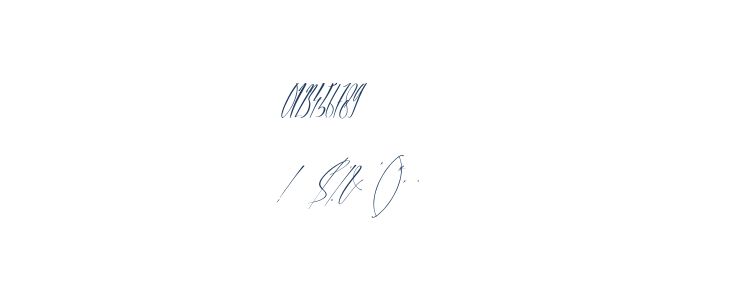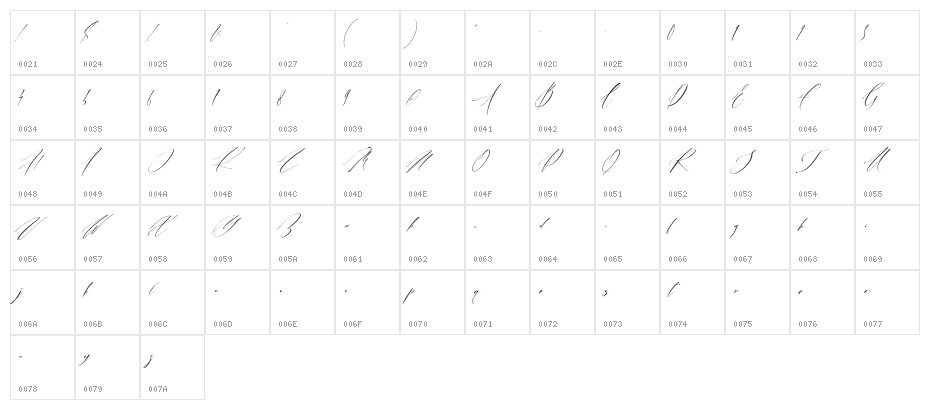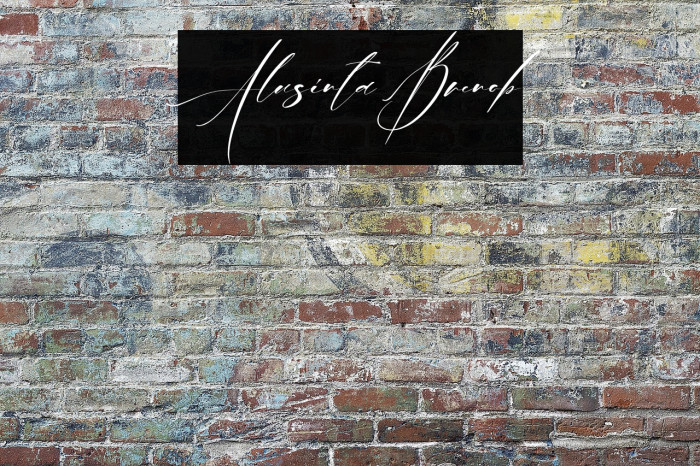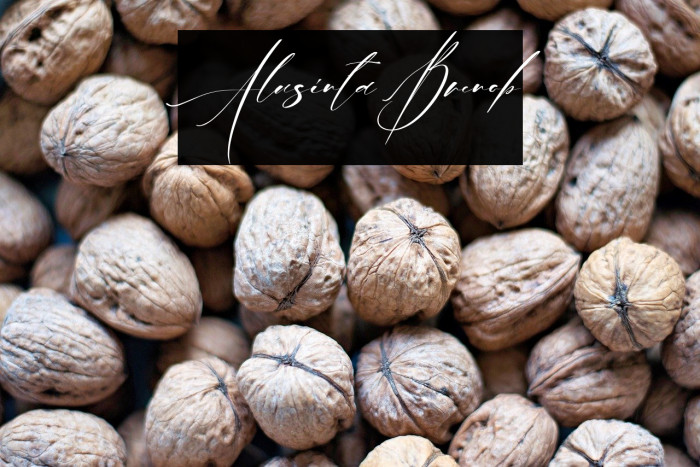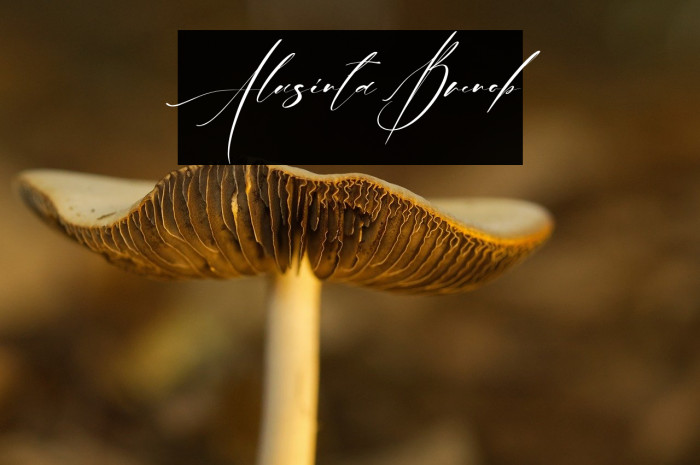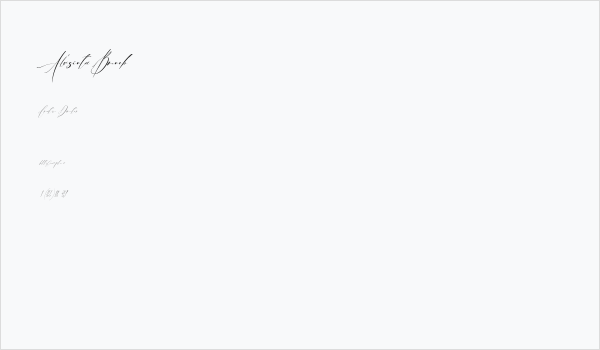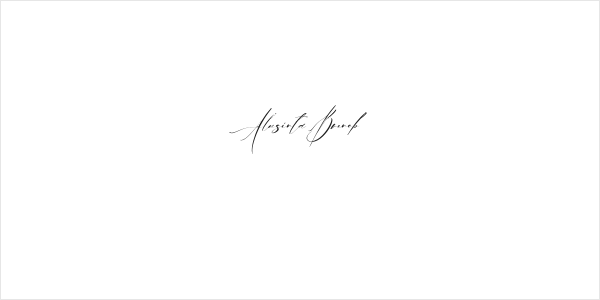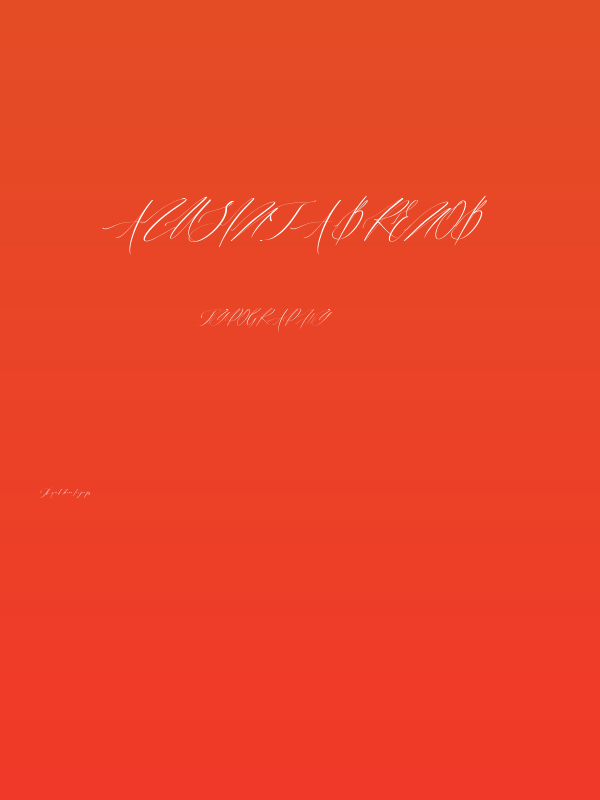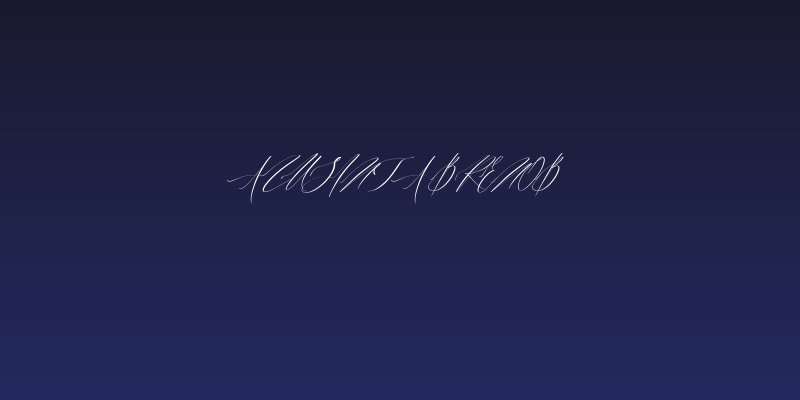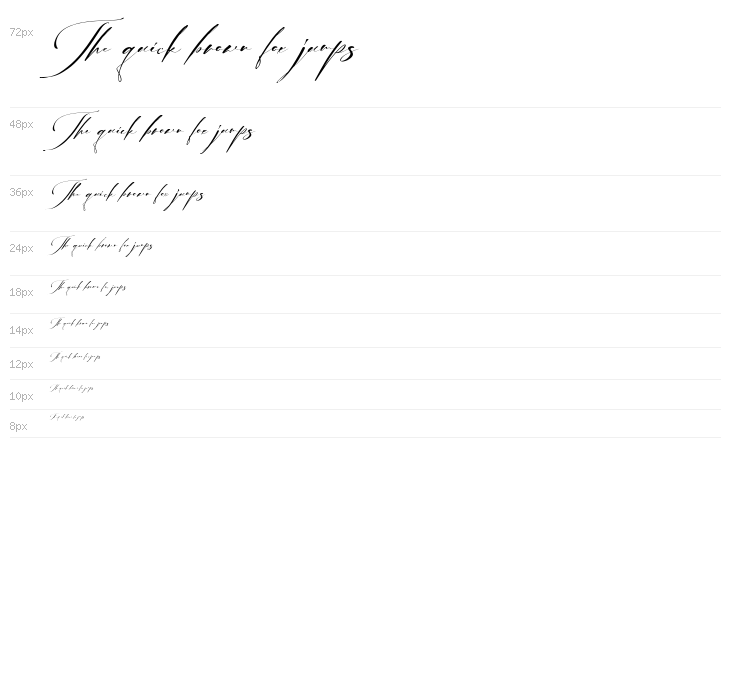
Alusinta Brenob Font
Alusinta Brenob Description
This elegant script font features a flowing, cursive style with high contrast between thick and thin strokes. The letters are intricately designed with elongated, sweeping lines that give a sense of movement and grace. The uppercase letters are particularly ornate, with flourishes that extend beyond the baseline and cap height, creating a dramatic and sophisticated appearance. The lowercase letters maintain a consistent style, with smooth connections and a slightly slanted orientation. The numerals and special characters are equally stylized, maintaining the overall aesthetic of the font. This font exudes a sense of luxury and refinement, making it suitable for high-end branding and design projects.